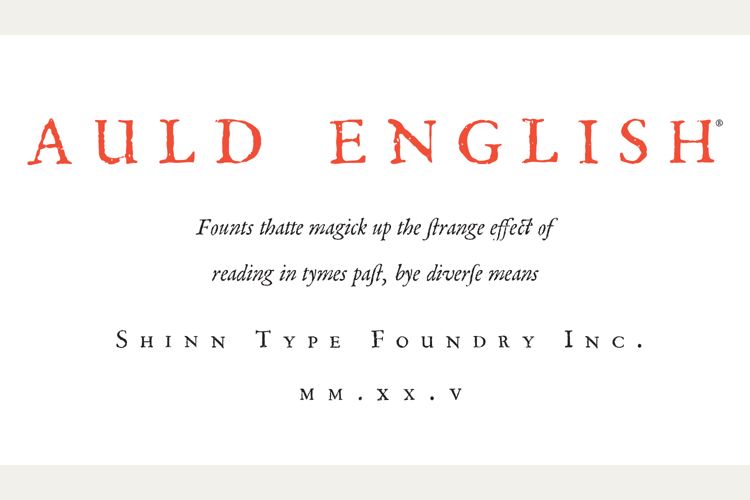
Auld English Spell Font
The look of language altered dramatically around the year 1800, profoundly transforming the experience of reading. The long-s character was abandoned, spelling became standardized, and tech innovation produced a new clarity of typography. This typeface addresses that great disruption, straddling the divide and transporting the reader back to before that time, with three unique features— 1: Alternate glyphs that create a random “analog” effect mimicking antique letterpress printing of body text (professional fonts), 2: Default long‑s, coded according to the conventions of the 17th and early 18th centuries (Spell fonts), and, most remarkably, 3: Writing of text in a “Mock Tudor” manner (Spell fonts). Note that these features may be selectively applied.